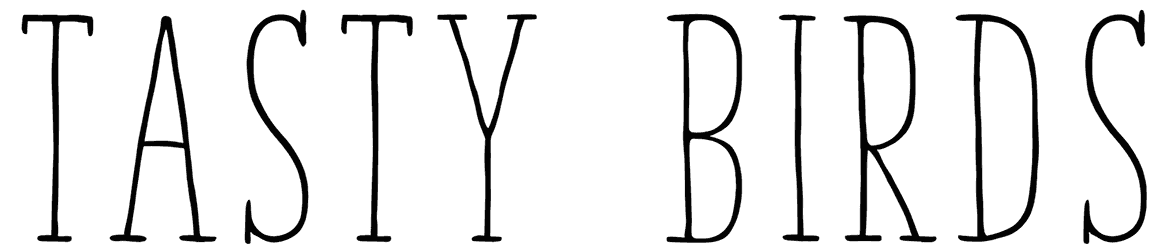
Tasty Birds Font
We believe that beauty comes with simplicity, if you have a common opinion, we would like to offer a glamorous serif font such as Tasty Birds to you.
The good news about this artwork is that it comes in five distinctive weights and broadens your horizons in the middle of designing presentations, book covers, business cards, diplomas, or formal documents. It would be better to overlook the lack of lowercase letters and make the best possible outcome out of it.
Designed by: Youssef Habchi